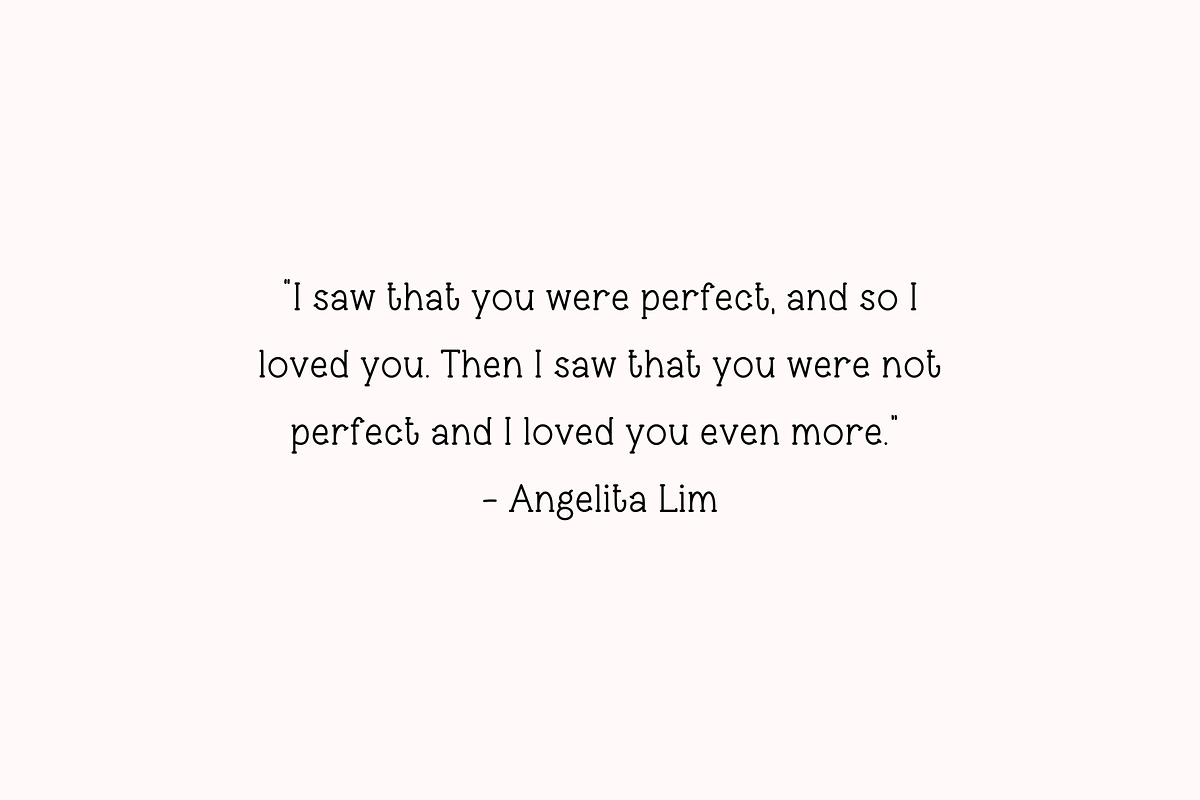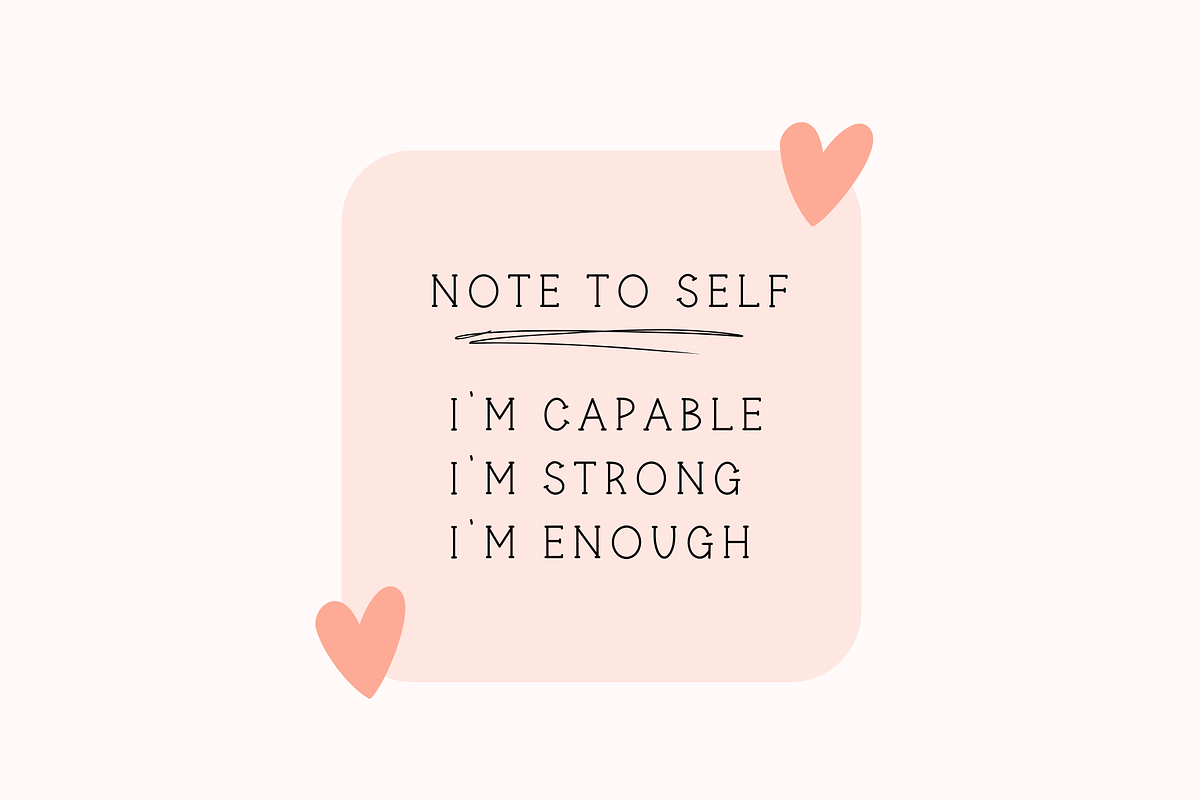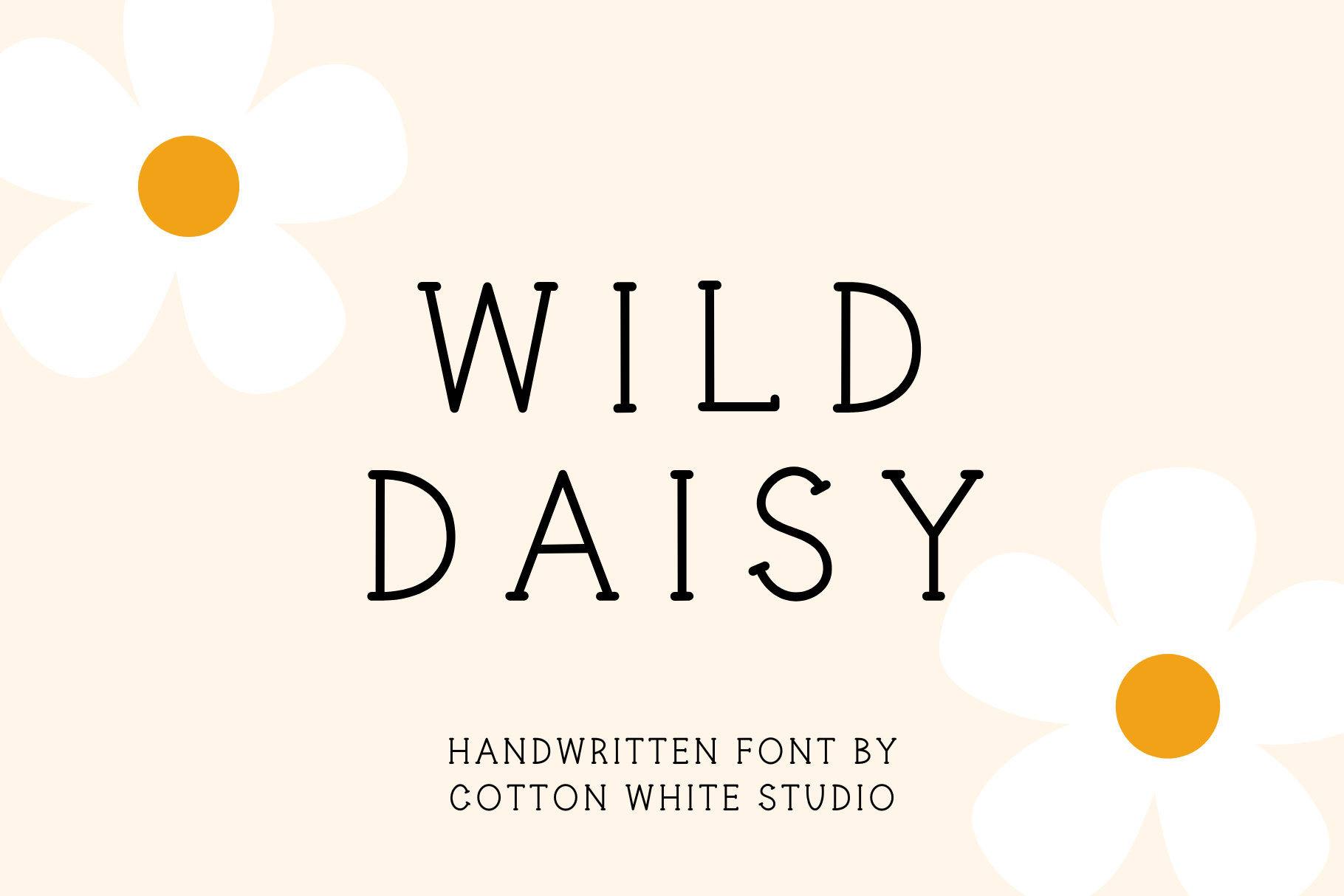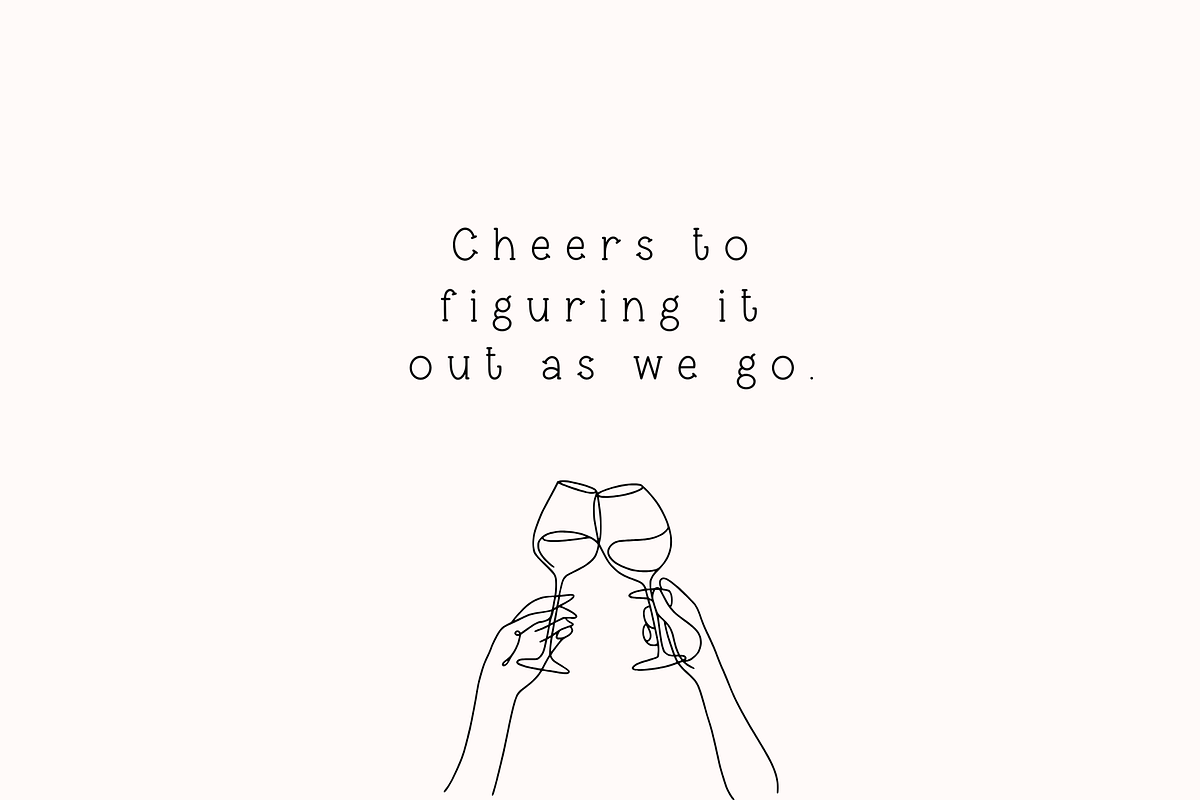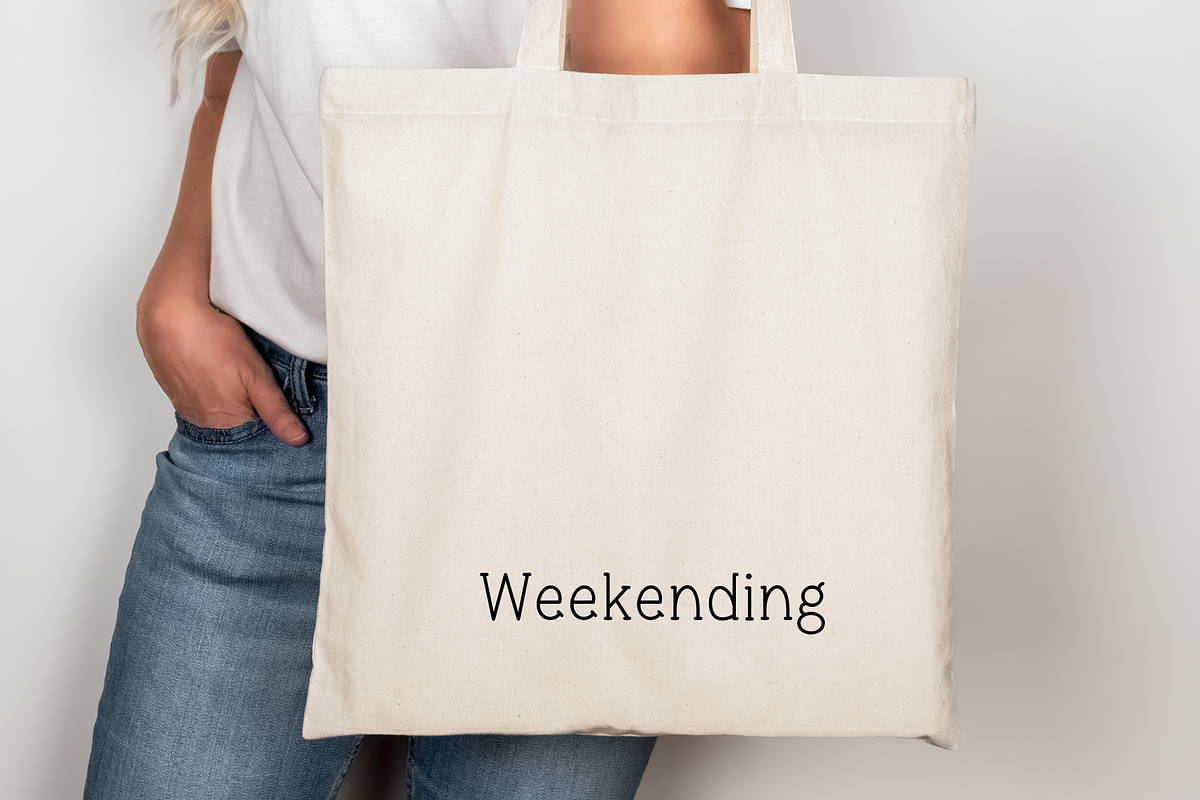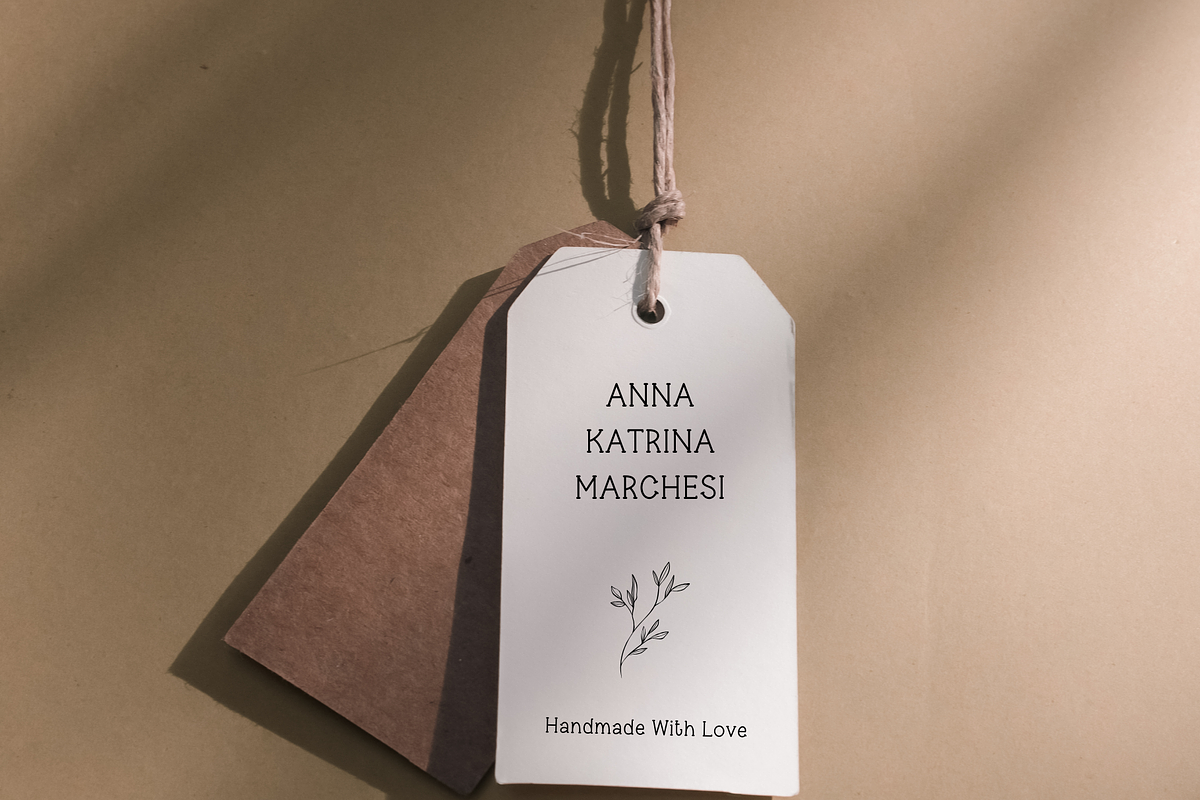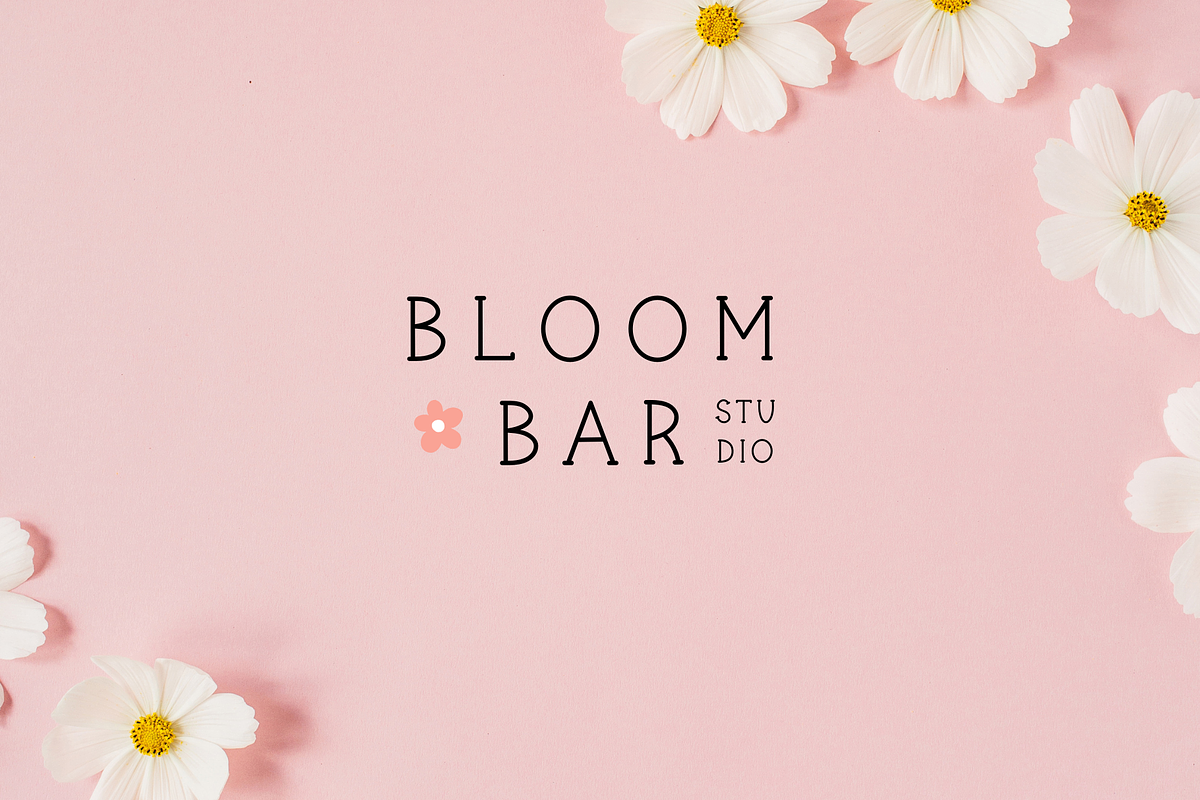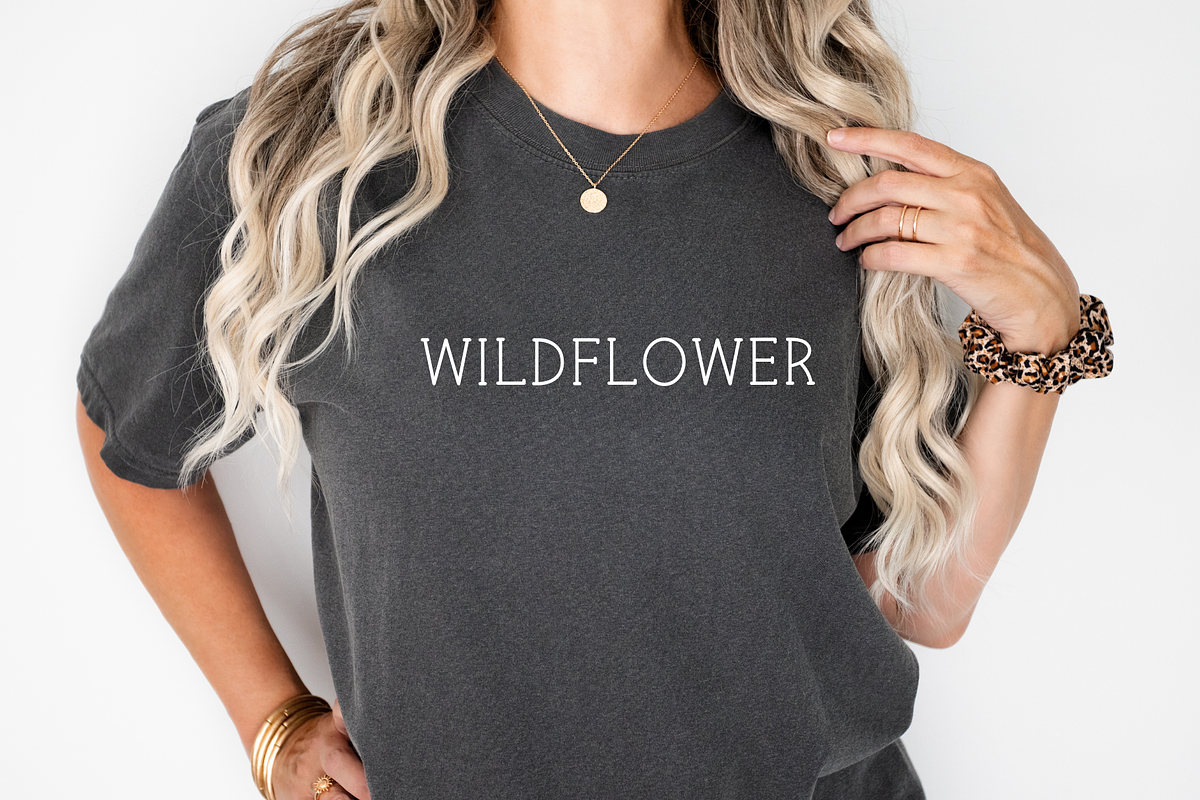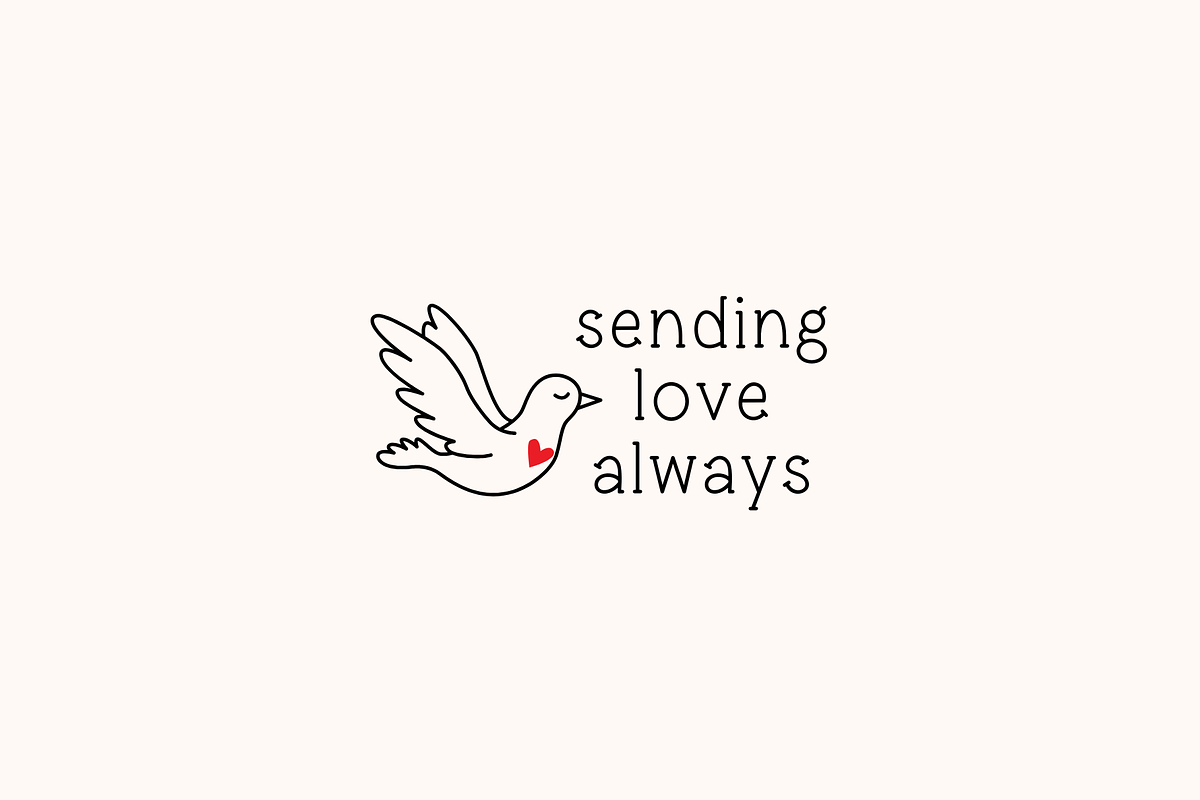
Wild Daisy Cute Font
A cute little font, perfect to jazz up your digital planner, journal, invitations, note-taking, or anything that requires a handwriting look.
Includes a bold and an italic version.